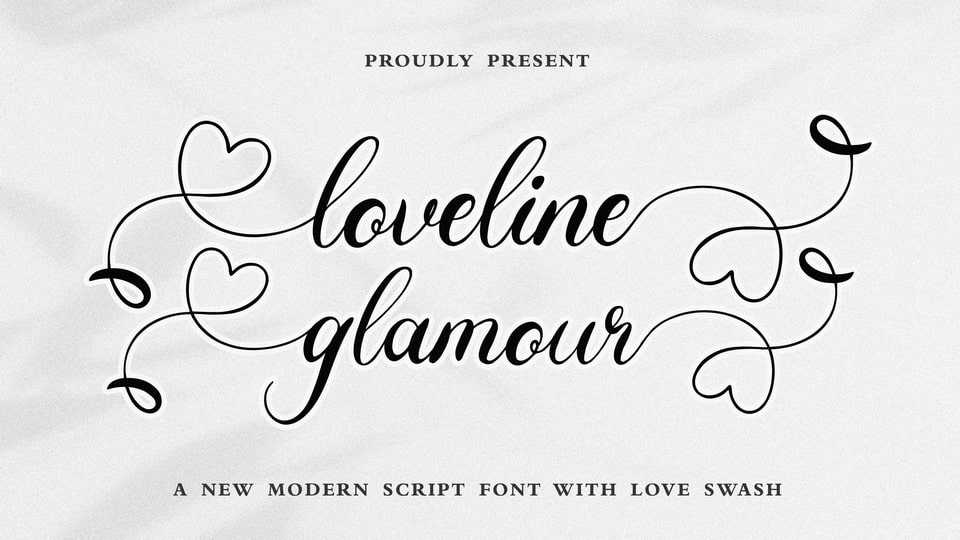
Download Loveline Glamour font, an exquisite handwritten typeface, masterfully designed to become a true favorite. Loveline Glamour maintains its classy calligraphic influences while feeling contemporary and fresh.
Designer: Essentials Studio